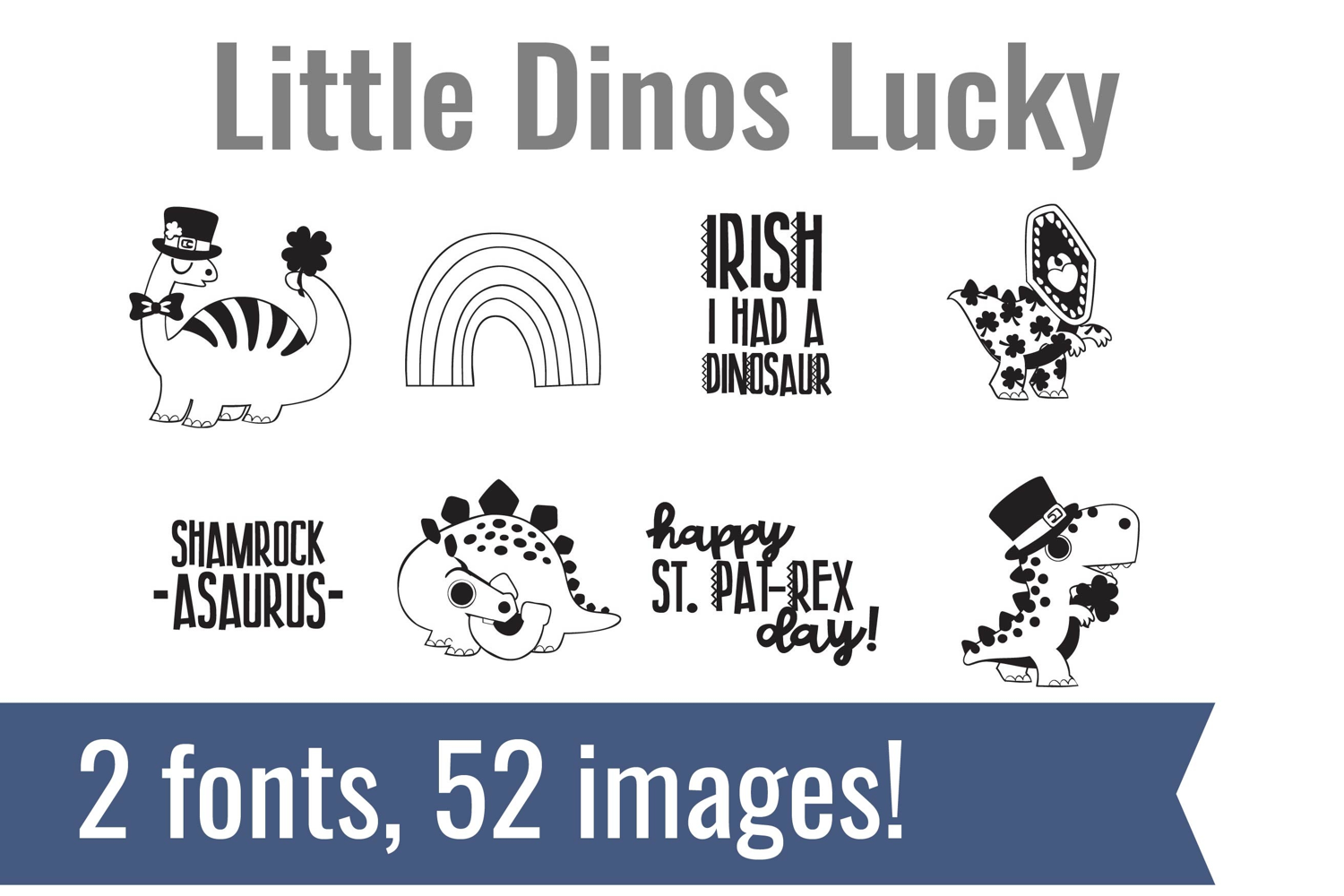
Little Dinos Dingbats
Unlock endless creativity with two perfectly coordinated dingbat fonts! There are two dingbat fonts in this bundle, featuring the cutest, dinosaur (lucky and racing) images.